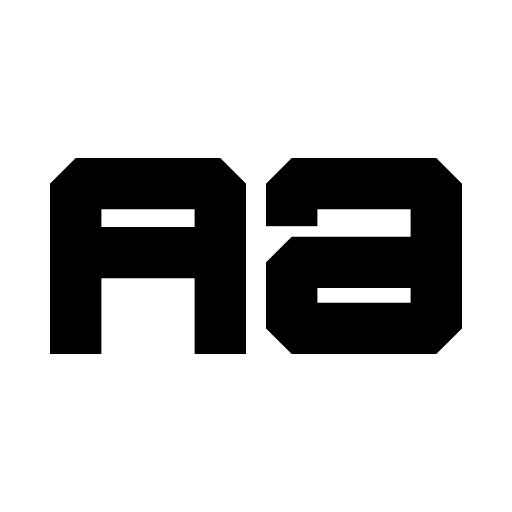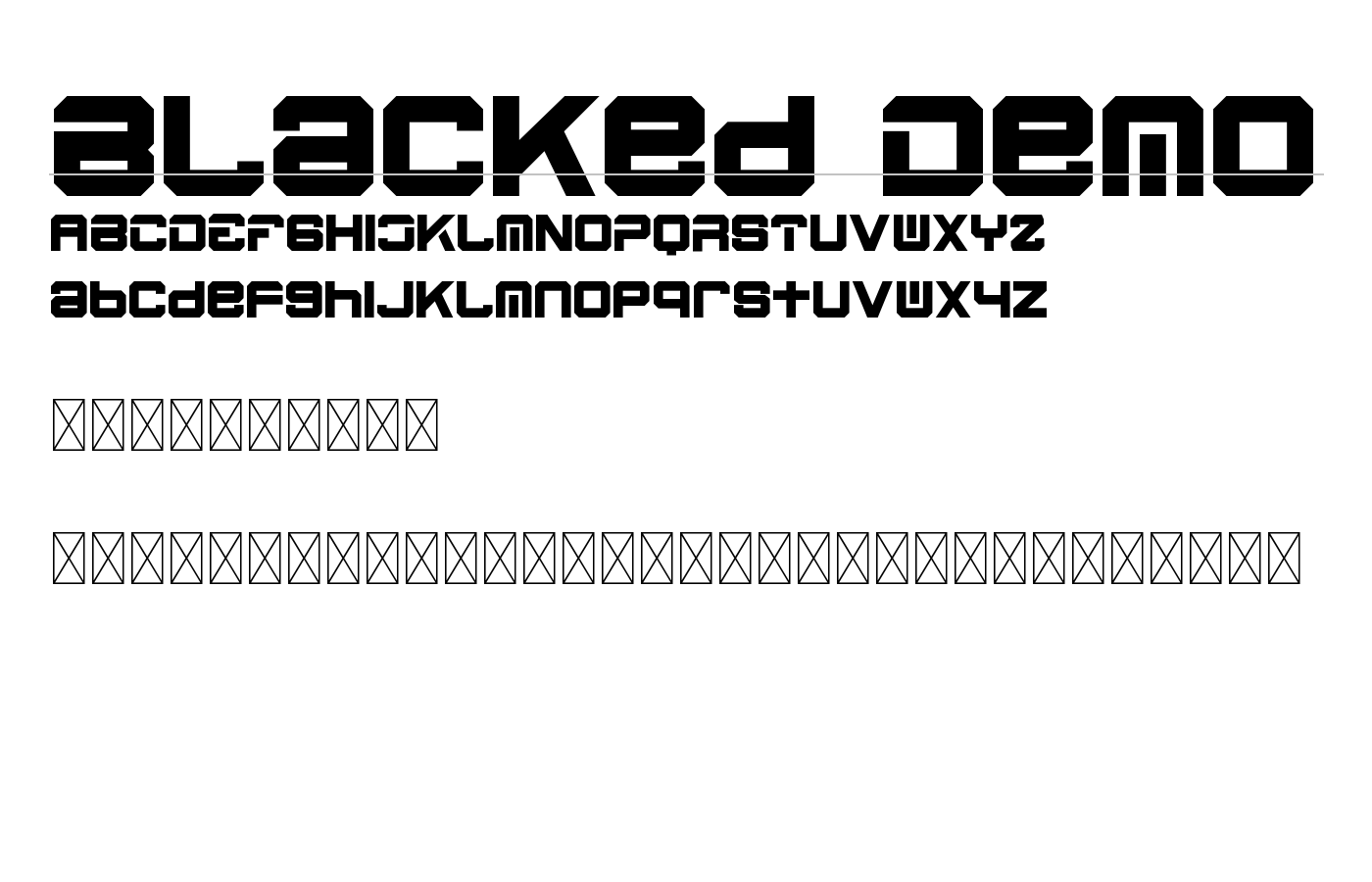
Blacked Demo is a bold, geometric sans serif font with a strong, blocky character that grabs attention. Its high contrast edges and angular shapes give it a futuristic, tech-inspired vibe, making it ideal for impactful headlines, logos, and branding where a modern, edgy tone is desired. This font works well in designs that need a commanding presence and a sense of innovation or strength.
Blacked Demo Font
About Blacked Demo Font